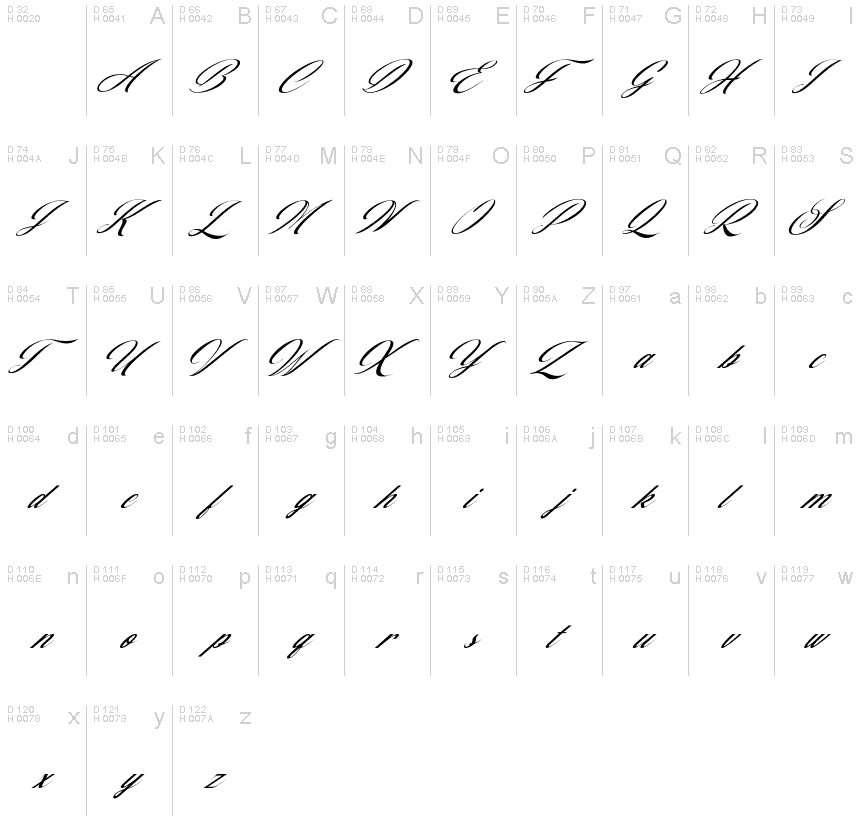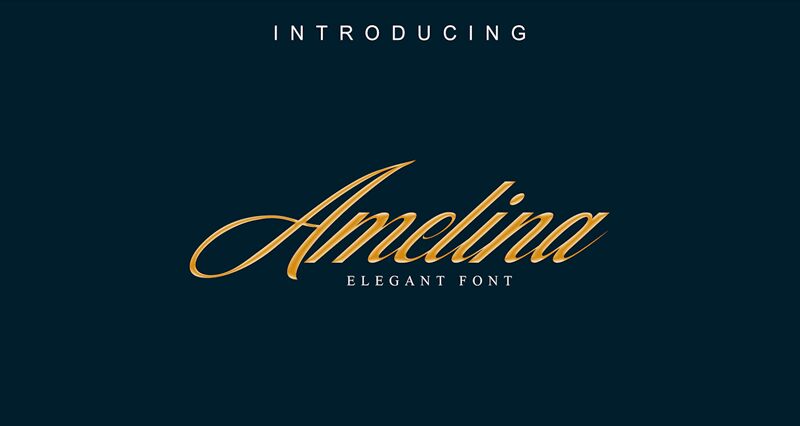
Amelina Script Regular
Amelina Script by Hendi Kusuma is a stunning calligraphy font that exudes elegance and sophistication. Its semi-light weight and extra-condensed width make it perfect for designs that require a delicate touch, such as wedding invitations, greeting cards, and branding projects for high-end fashion or beauty brands. The flowing curves and graceful strokes of Amelina Script add a romantic feel to any design, while its unique flourishes provide a touch of whimsy. Whether you're designing for print or digital media, Amelina Script is sure to leave a lasting impression on your audience.
Amelina Script